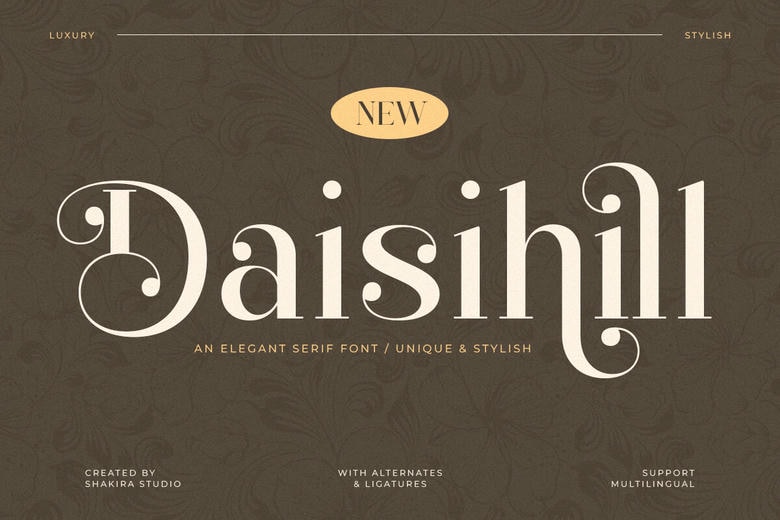
Daisihill Font
Daisihill is a beautiful serif font in both regular and italic styles that adds an extra element of luxury and refinement to any project. With its slimline, chic nature, the classic elegance meets modern design of Daisihill with its elegant alternates and ligatures.
Daisihill Serif Font